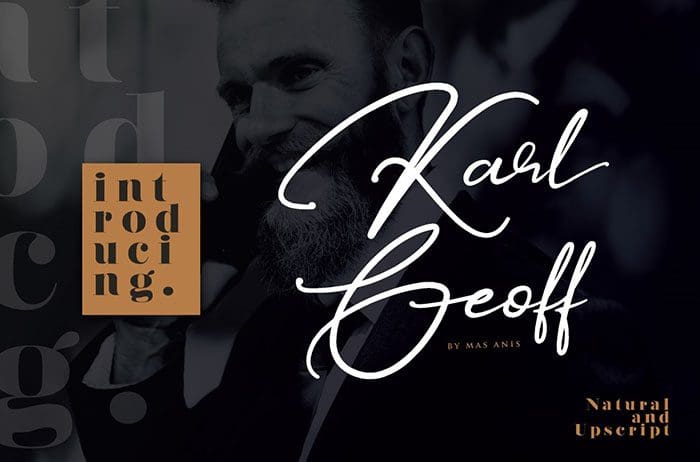
Karl Geoff Script Font
Karl Geoff is a unique and cool looking script font, ideal for use in projects that need an organic and natural style. This font is great for logotype, and can add an elegant and classy look to your work. Designed this font by Mas Anis. You can also search more freeĀ Script Fonts.